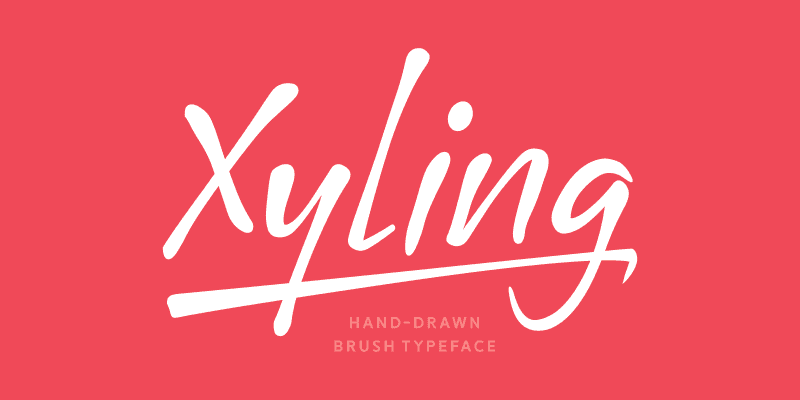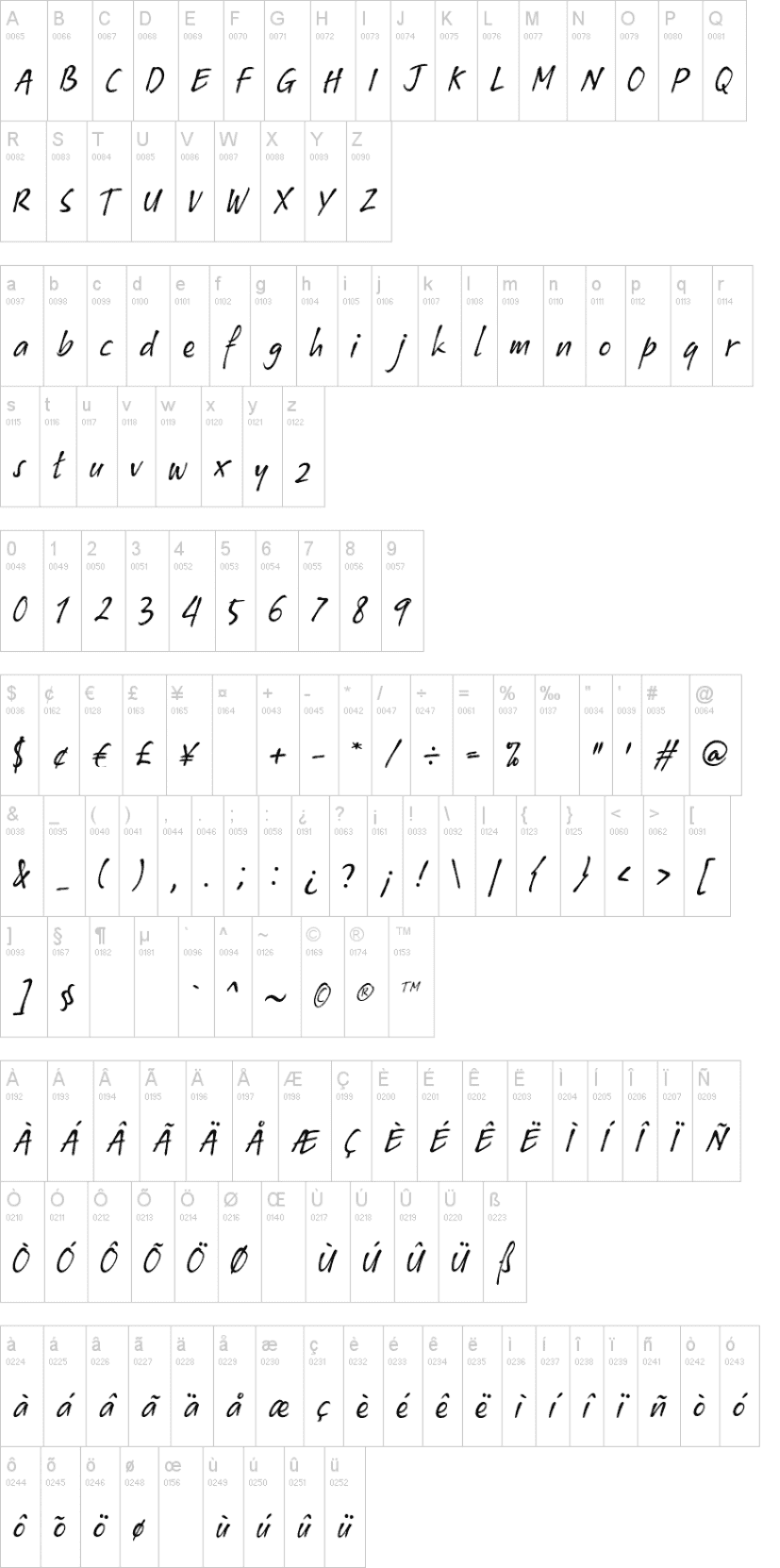
Xyling is a free Brush font which is created by 7NTypes that can be downloaded and used for personal purposes. The free version has all the alphabets, both upper case and lower case and a few more special characters.